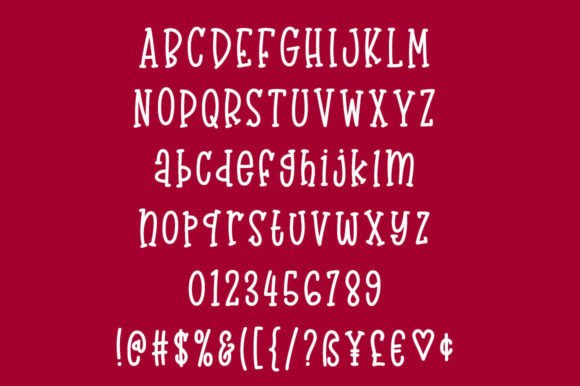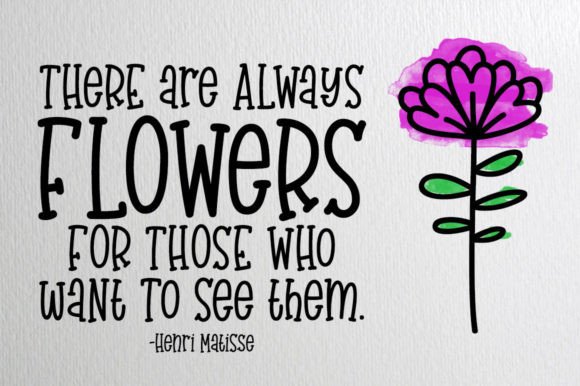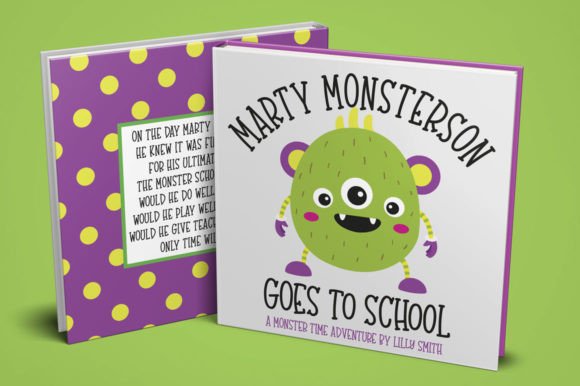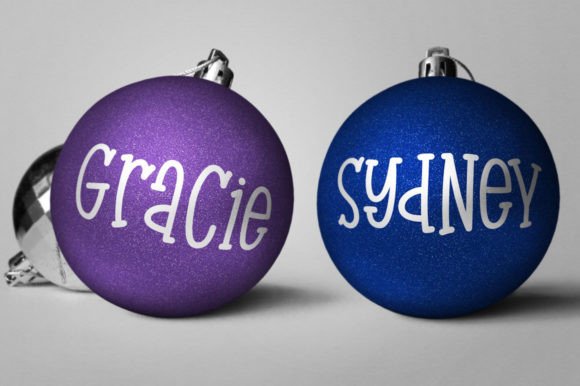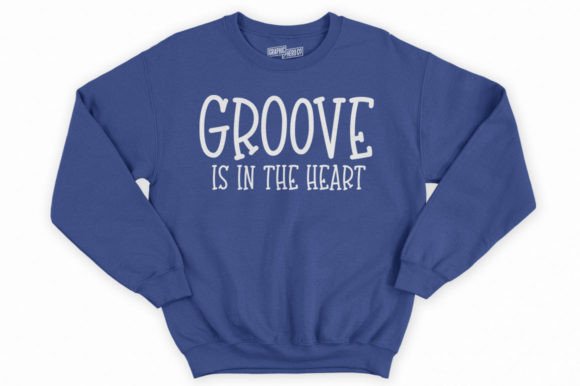
Introduction to Garrulous Font
Looking for a tall, skinny, rounded serif font, with a fun hand-written feel.
Look no farther than Garrulous is a mixed-case font, with the lowercase letters standing just as tall as the uppercase, so you can mix and match uppercase and lowercase in the same word for an extra fun look.